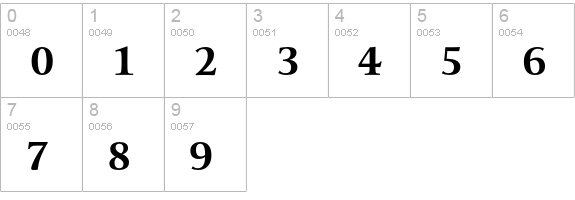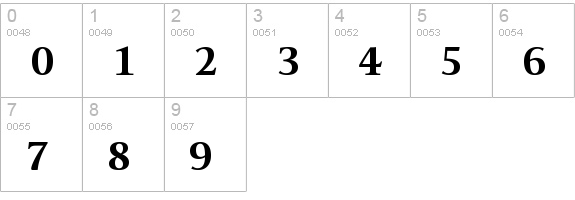
Mentor Bold is a strong, high-contrast variant in the Mentor typeface family \xE2\x80\x94 well suited to headlines, attention-grabbing titles, and strong calls-to-action.
Introducing Mentor Bold font, a modern and versatile typeface that exudes confidence and sophistication. With its bold and distinctive letterforms, Mentor Bold is the perfect choice for making a strong statement in your designs. Whether you're creating eye-catching headlines or sleek branding materials, this font will elevate your projects to the next level. The best part? Mentor Bold font is available for free download at FontsMarket.com. This means you can easily access this premium font without any cost, making it a valuable addition to your font library. Don't miss out on the opportunity to enhance your designs with the timeless elegance of Mentor Bold font. Download it now and start creating stunning visuals that leave a lasting impression.